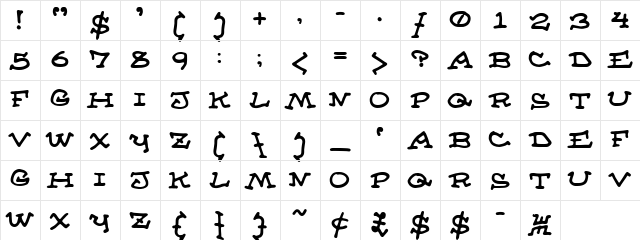
Almanac of the Apprentice Regular
| Designer | S. John Ross |
Design Context for Almanac of the Apprentice Typeface
Almanac of the Apprentice is a composed and adaptable typeface that performs quietly and consistently across a wide range of design contexts.